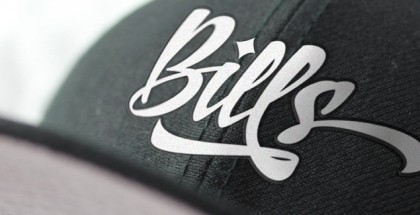
Torio font
Torio font by Dino dos Santos and Pedro Leal (DSType foundry) is an elegant cursive script, created as a result of a comprehensive study of the 18th century Spanish calligrapher’s Torio de la Riva book “Arte de Escribir”: one of the most prominent books on calligraphy at that time. Torio de la Riva was a proficient person and exceptionally cultured in many fields of knowledge – mathematics, philosophy as well as history of calligraphy and writing practice.
Torio font is a precised reconstruction of the first ten plates of the “Arte de Escribir” chapter dedicated to the Italian Script, which plates are believed most likely to be written by Torio himself. These engravings are reflecting his specific calligraphy and are also closely associated with the popular at that time style in calligraphy called ‘Spanish Bastarda’. While creating Torio font its designers intention was to stay close to the original with some minor changes in few of the glyphs, mainly in order to make the typeface up-to-date and adequate for more languages.
The Torio font family consists of two fonts: Torio Script and Torio Ornaments. Torio Ornaments contains calligraphic decorative patterns found on the original plates. The Torio Script font power and beauty as a cursive script is in the existence of many alternates per glyph: each letter has at least four variations. Each variation is contextually programmed, depending on the letter that follows, thus preserving the text rhythm and the perfect flow in connecting strokes. These four versions are available for every single letter, both in upper and lowercase. This system of OpenType Contextual Alternates (turned ON by default) is further enriched with more variations reaching up to eight per glyph (some variations for beginning and ending of words, for final letter swashes, etc.) More OpenType features include a special set of Ligatures (ON by default) and Swashes for all ascenders (OFF by default).
The Torio font with its distinctive elegance and flamboyant beauty is perfect for luxury branding, magazines, posters, invitations, and many others.
Dino dos Santos is Portuguese graphic and type designer graduated in Graphic Design by ESAD, Matosinhos and was awarded with a Master in Multimedia Arts at FBAUP, Porto. Other prizes, which he was awarded are: Creative Review Type Design Awards’ Best Revival/Extension Family in 2005 for his Andrade font; Certificate of Excellence in Type Design by the Type Directors Club of New York in 2008 for his Ventura font. In 1994 Dino dos Santos founded DSType, an independent type foundry.
Pedro Leal is Portuguese typographer, graphic designer, and illustrator graduated in ESEIG (Escola Superior de Estudos Industriais e de Engenharia) in Vila do Conde, Portugal. Currently he works at the DSType studio, specializing in the creation of custom typefaces, improving the balance and legibility of existing faces, and fine tuning logotypes.
Designers: Dino dos Santos, Pedro Leal
Publisher: DSType